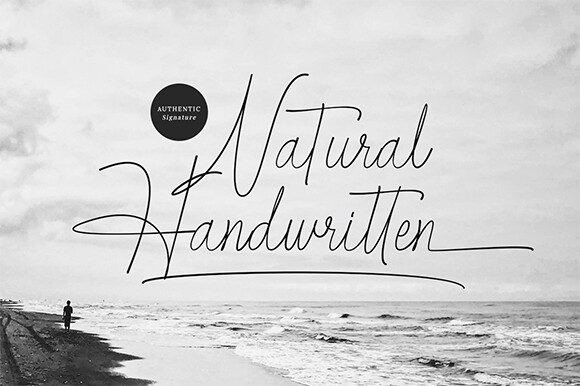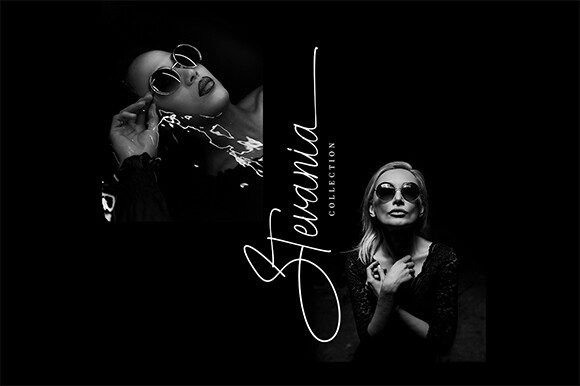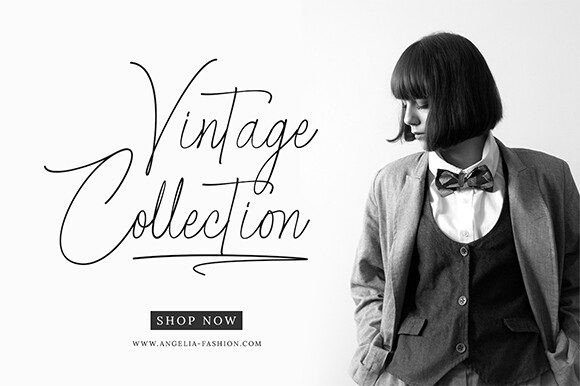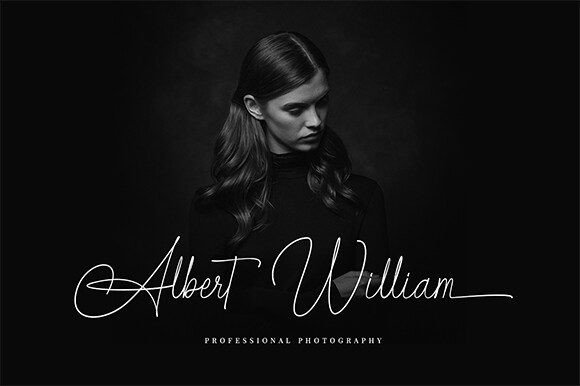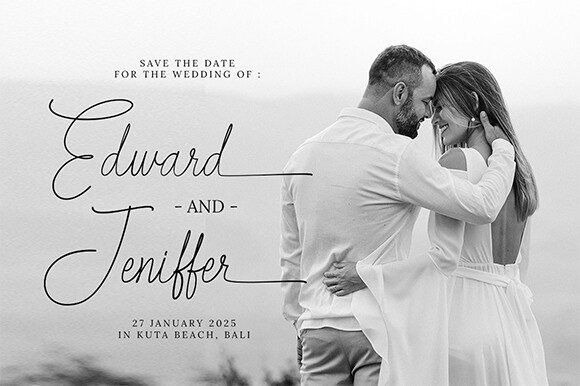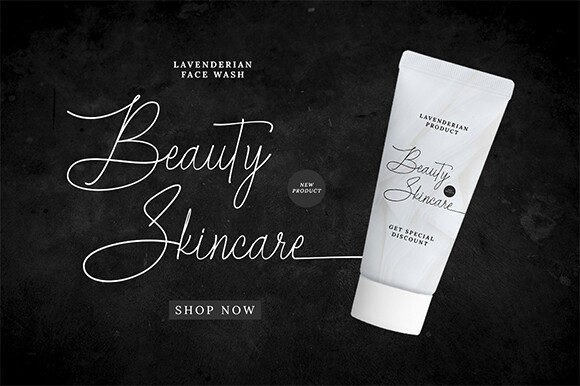
Discover Amsterlusia Font: Elevate Your Designs with Elegant Handwritten Signatures
In the world of typography, fonts play a crucial role in conveying the tone and personality of a brand, product, or message. For designers and crafters seeking to add a touch of sophistication and elegance to their projects, Amsterlusia font is an excellent choice. This beautiful, handwritten signature font is perfect for a variety of applications, including branding, logos, invitations, and more.
What is Amsterlusia Font?
Amsterlusia font is a carefully crafted typeface that mimics the fluidity and uniqueness of handwritten signatures. Its sophisticated design makes it an ideal choice for those looking to add a personal and elegant touch to their work. Whether you’re a designer looking for the perfect font for a client’s branding project or a crafter seeking to create beautiful, one-of-a-kind invitations, Amsterlusia is sure to impress.
Key Features of Amsterlusia Font
- Handwritten Signature Style: Amsterlusia boasts a beautiful, handwritten signature style that adds a touch of elegance and sophistication to any project.
- Unique and Personal Touch: Each letterform is carefully designed to mimic the uniqueness of handwritten signatures, making it perfect for adding a personal touch to your work.
- Versatile: Amsterlusia is suitable for a wide range of applications, including branding, logos, invitations, packaging, and more.
- Elegant and Sophisticated: The font’s elegant design makes it perfect for high-end branding, luxury packaging, and other applications where sophistication is key.
Uses of Amsterlusia Font
Amsterlusia font is incredibly versatile and can be used in a variety of contexts. Here are some ideas to get you started:
- Branding and Logos: Use Amsterlusia to create a unique and memorable brand identity that stands out from the competition.
- Invitations and Stationery: Add a touch of elegance and sophistication to your invitations, greeting cards, and other stationery with Amsterlusia.
- Packaging: Use Amsterlusia to create beautiful and eye-catching packaging that reflects your brand’s personality.
- Digital Media: Amsterlusia is perfect for use in digital media, including social media graphics, website headers, and more.
Why Choose Amsterlusia Font?
With so many fonts available, why choose Amsterlusia? Here are just a few reasons:
- Unique and Distinctive: Amsterlusia’s handwritten signature style sets it apart from more traditional fonts, making it perfect for brands and designers looking to stand out.
- Elegant and Sophisticated: The font’s elegant design makes it perfect for high-end branding, luxury packaging, and other applications where sophistication is key.
- Easy to Read: Despite its elegant design, Amsterlusia is easy to read, making it perfect for use in a variety of contexts.
Amsterlusia font is a beautiful and sophisticated typeface that is perfect for designers and crafters looking to add a touch of elegance and sophistication to their work. With its unique and distinctive handwritten signature style, Amsterlusia is sure to make your projects stand out. Whether you’re working on a branding project, creating invitations, or designing packaging, Amsterlusia is an excellent choice.